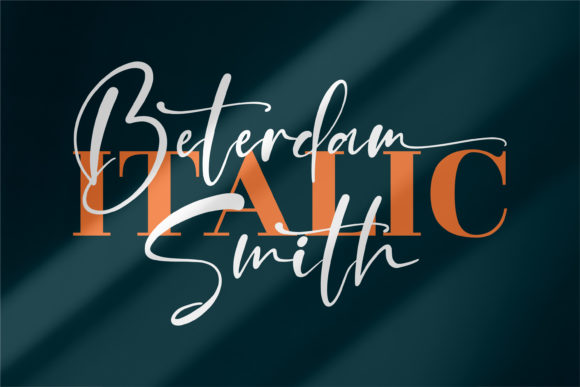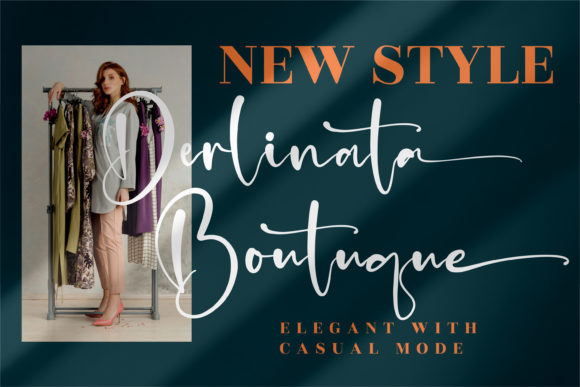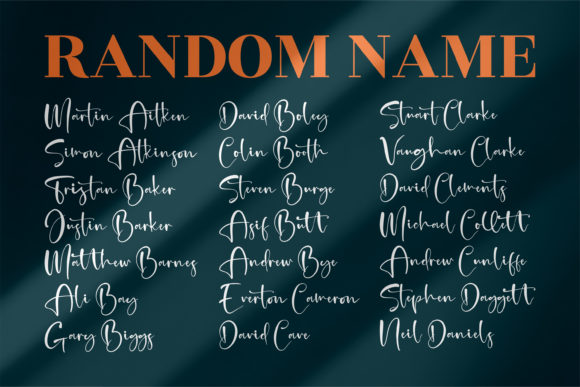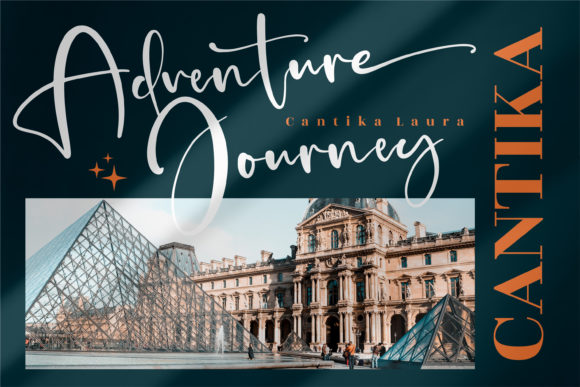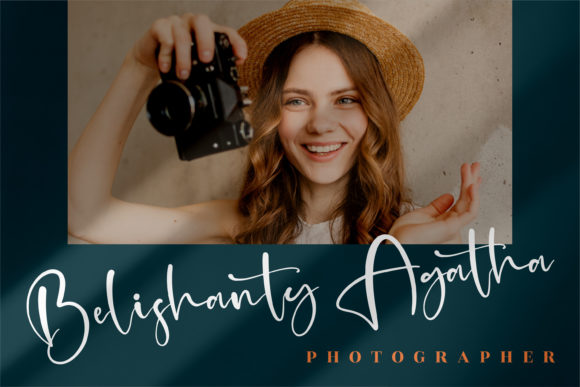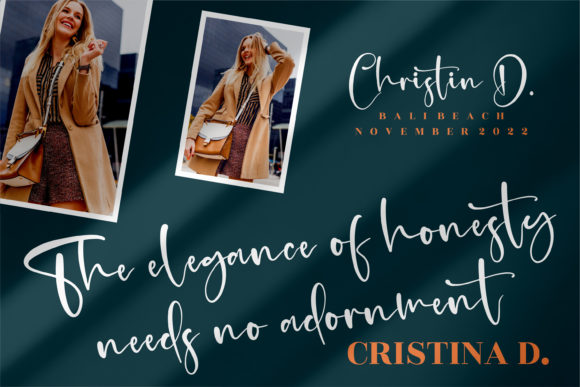
Beterdam Smith Font: Elevate Your Designs with Charming Script Elegance
In the vast universe of typography, certain fonts stand out for their unique ability to transform the aesthetic of any design project. Beterdam Smith is one such font that has captured the hearts of designers and crafters alike with its charming, playful characters that seem to dance along the baseline. This lovely script font is not just a typeface; it’s an invitation to infuse your creative ideas with a touch of elegance and whimsy. In this article, we’ll dive deep into the features of Beterdam Smith, exploring what makes it a must-have in your font collection.
The Allure of Beterdam Smith
Beterdam Smith boasts a distinctive script style that is both elegant and playful. Each character in this font seems to have a life of its own, gracefully dancing along the baseline. This unique trait makes Beterdam Smith perfect for projects that require a touch of sophistication and charm. Whether you’re working on wedding invitations, branding materials, or creative crafts, Beterdam Smith has the potential to elevate your designs to a new level of visual appeal.
One of the standout features of Beterdam Smith is its PUA (Private Use Area) encoding. This means that accessing all the glyphs and swashes is incredibly straightforward. PUA encoding allows designers to easily navigate through the font’s extensive library of characters, including special glyphs and swashes, making it simple to add intricate details to your designs. This feature is particularly beneficial for those who want to experiment with different styles and embellishments without the hassle of complicated font management.
Applications of Beterdam Smith
The versatility of Beterdam Smith makes it suitable for a wide range of applications. Here are a few ideas to get you started:
- Wedding and Event Stationery: Add a touch of romance and whimsy to wedding invitations, save-the-date cards, and other event-related materials.
- Branding and Packaging: Use Beterdam Smith to create eye-catching logos, product labels, and packaging that stands out on store shelves.
- Digital and Print Media: Enhance your blog posts, social media graphics, and print publications with elegant and playful text.
- Crafting and DIY Projects: Perfect for crafters, Beterdam Smith can be used in various DIY projects such as handmade cards, scrapbooking, and more.
Tips for Using Beterdam Smith Effectively
To make the most out of Beterdam Smith, consider the following tips:
- Mix and Match: Don’t be afraid to experiment with different sizes, colors, and styles within the font to create visual interest.
- Pair with Complementary Fonts: Beterdam Smith works beautifully with clean sans-serif fonts. Try pairing it with a simple font for headings and body text.
- Utilize Swashes: Take advantage of the swashes and glyphs available in Beterdam Smith to add a decorative touch to your designs.
Beterdam Smith is more than just a font; it’s a design element that can transform your creative projects with its charming and playful aesthetic. Its PUA encoding makes it easy to use, and its versatility ensures it can be applied across various design fields. Whether you’re a professional designer or a crafting enthusiast, Beterdam Smith is a valuable addition to your toolkit. So, why not give it a try and see how it can elevate your designs to new heights of elegance and whimsy?
Incorporating Beterdam Smith into your design repertoire is a step towards creating visually stunning and memorable projects. With its unique charm and extensive features, this lovely script font is poised to become your go-to choice for projects that demand a touch of sophistication and playfulness.